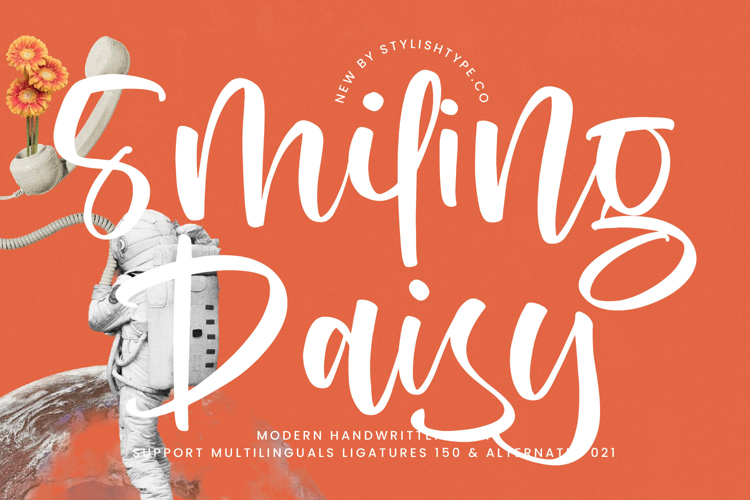
Smiling Daisy - Modern Handwritten Font
Smiling Daisy - Modern Handwritten Font captures the spontaneous energy and warmth of true handwriting, yet delivers it with professional polish. Its signature style features bold, sweeping connections and generous letterforms that demand attention. This script is inherently dynamic and joyful, making it an instant asset for projects requiring a touch of authentic, handcrafted appeal and high visual impact.